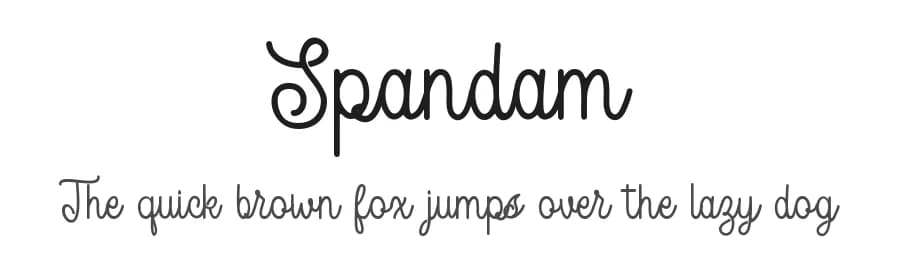
About Spandam Font
Introducing the new vintage Spandam Font. Inspired by old style typography combined with modern typography style.
Spandam Font is a script font that shines as a display or heading face. Pair it with a clean sans-serif or serif font for body text β the contrast creates a clear hierarchy while the two styles stay balanced and easy to read.
Spandam Font